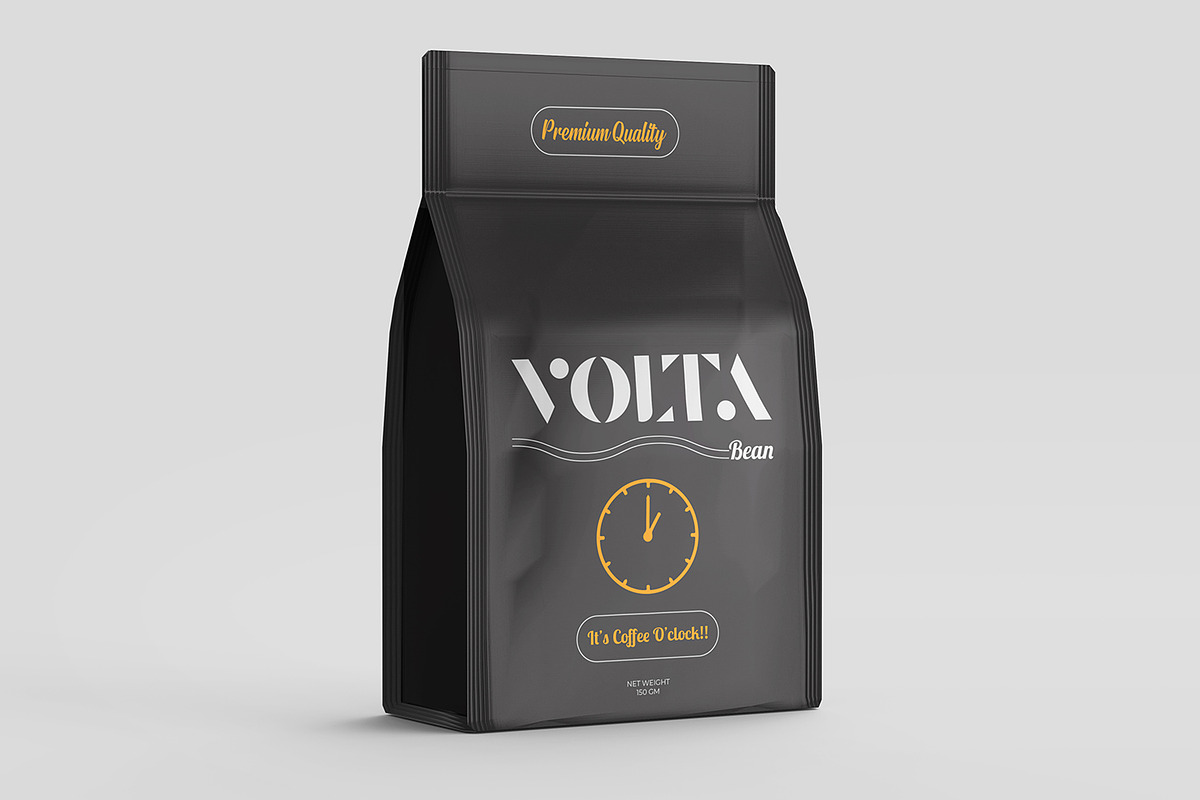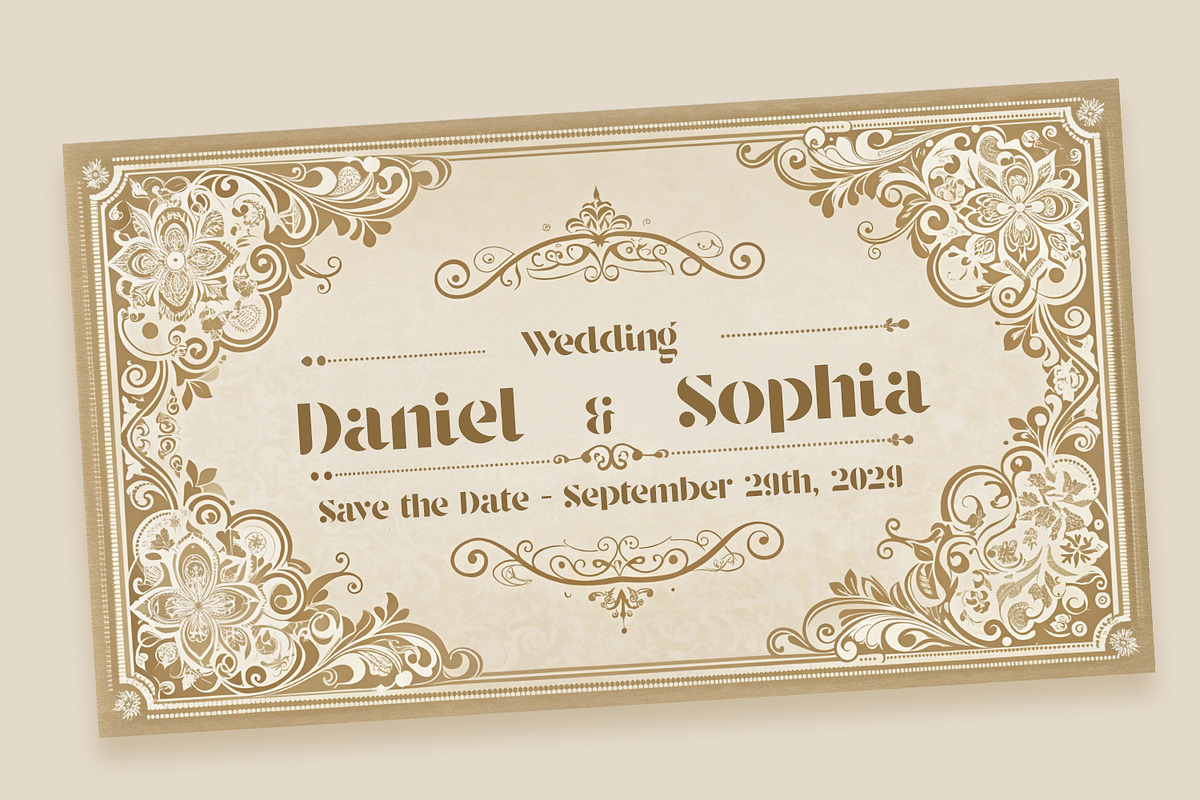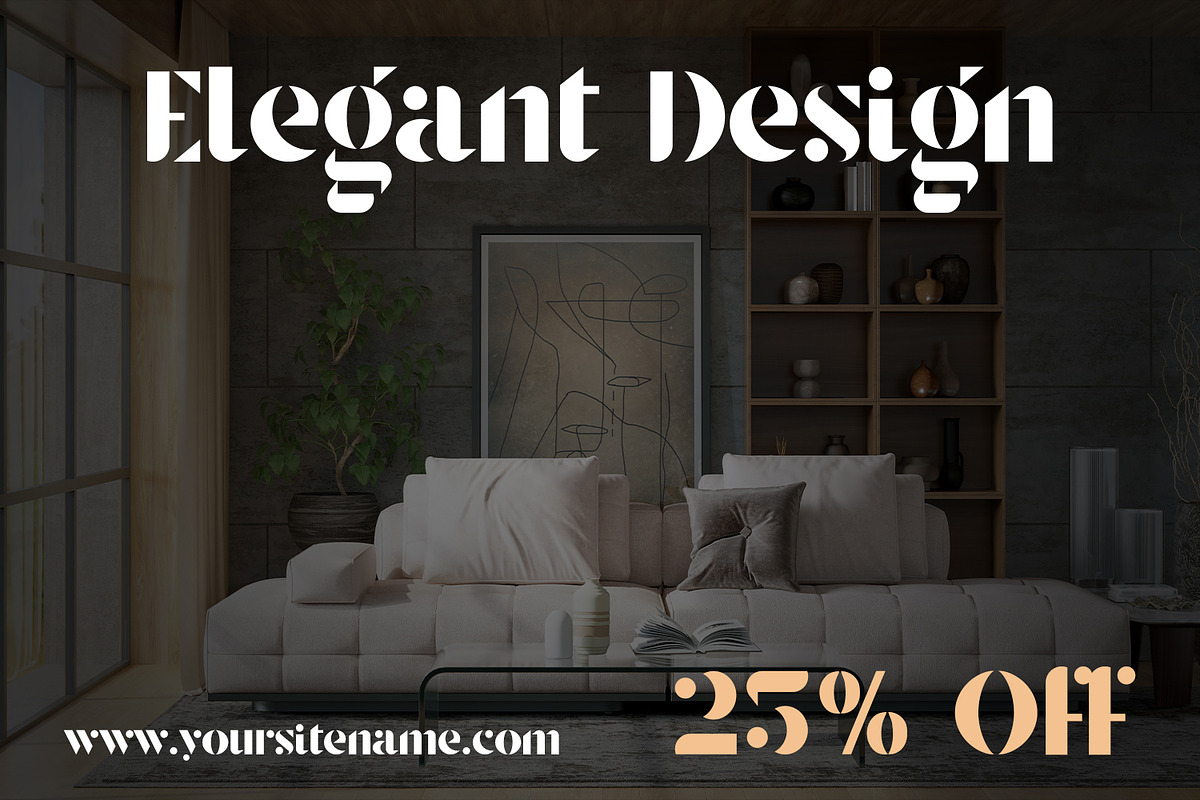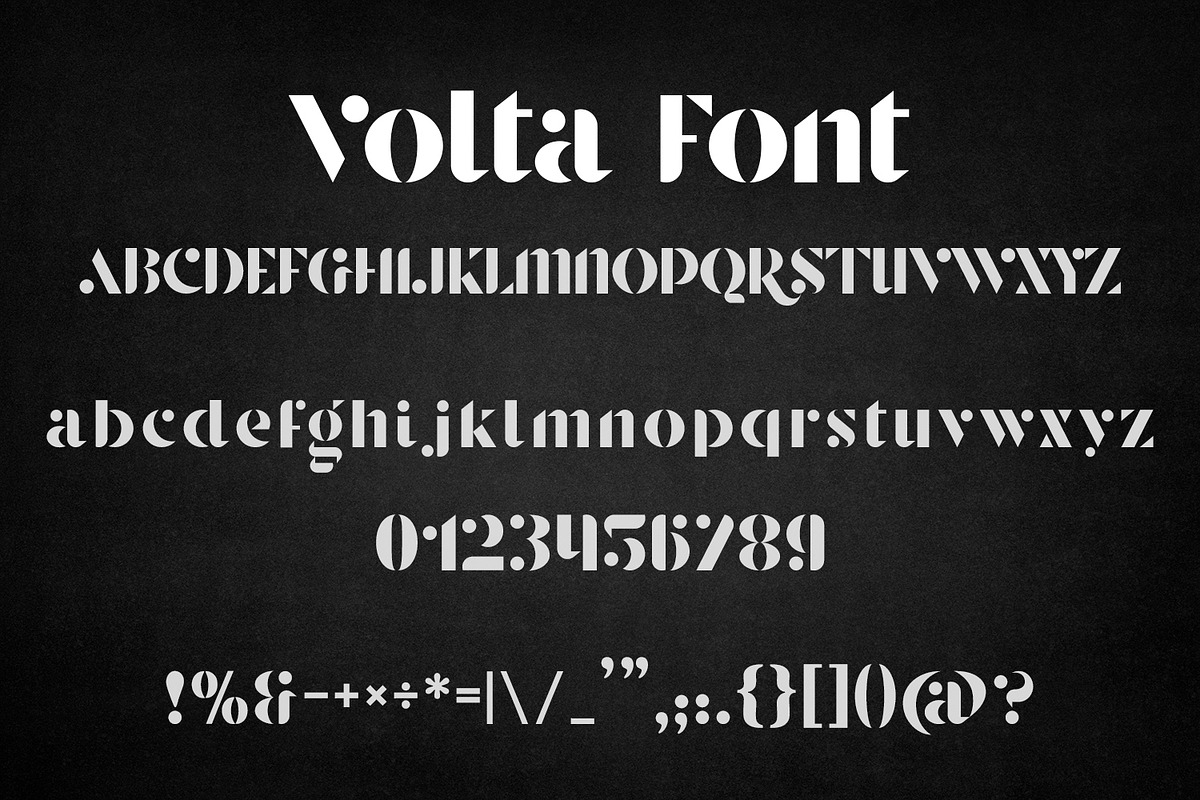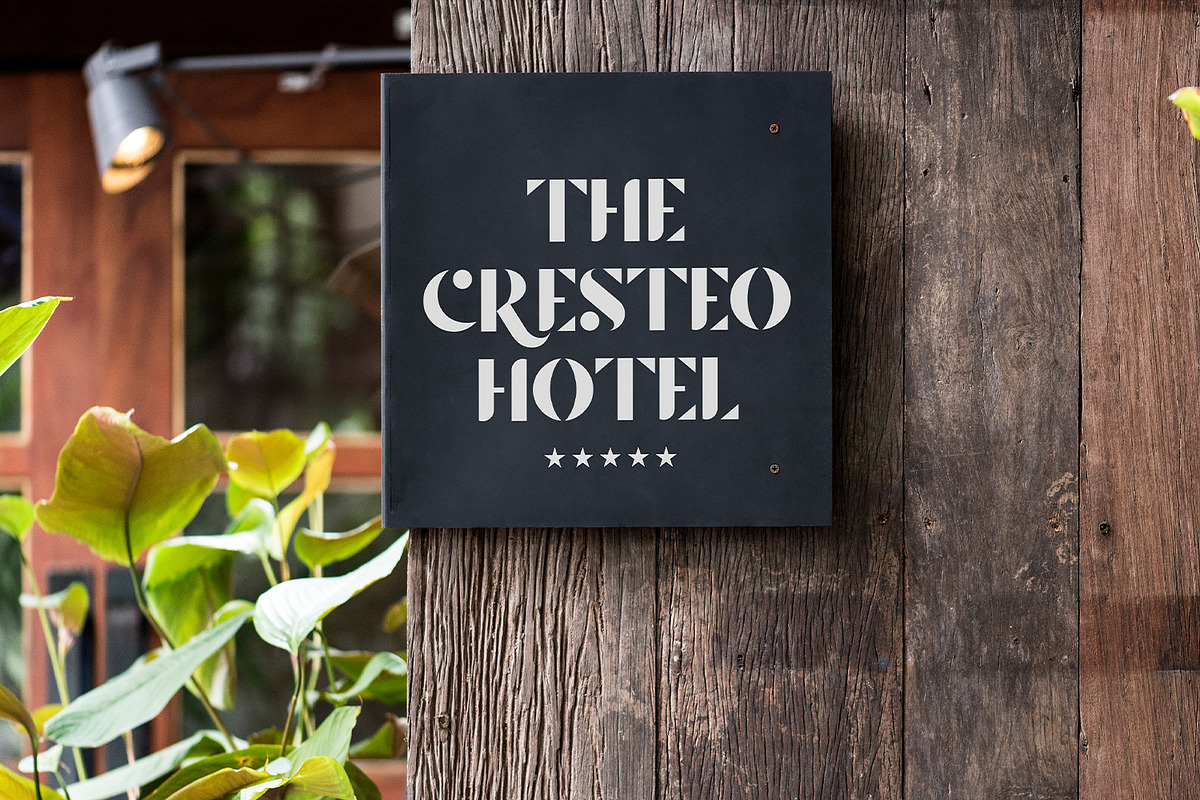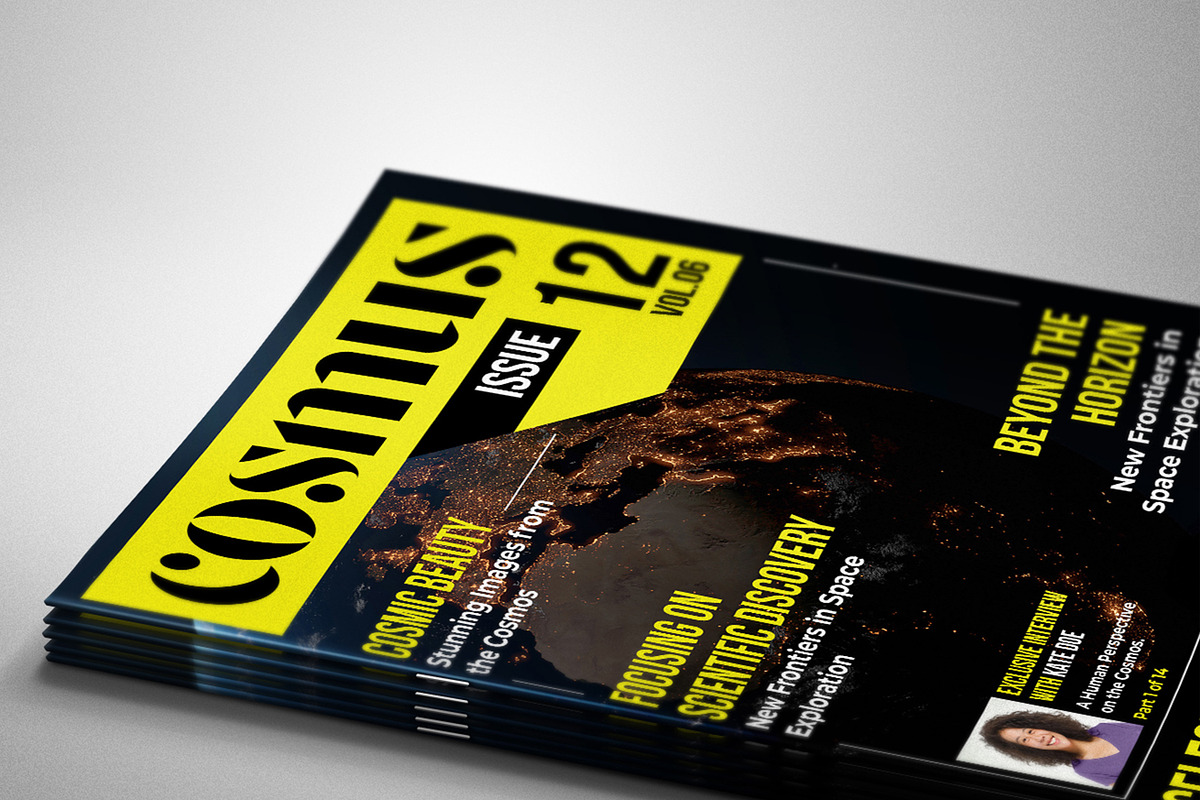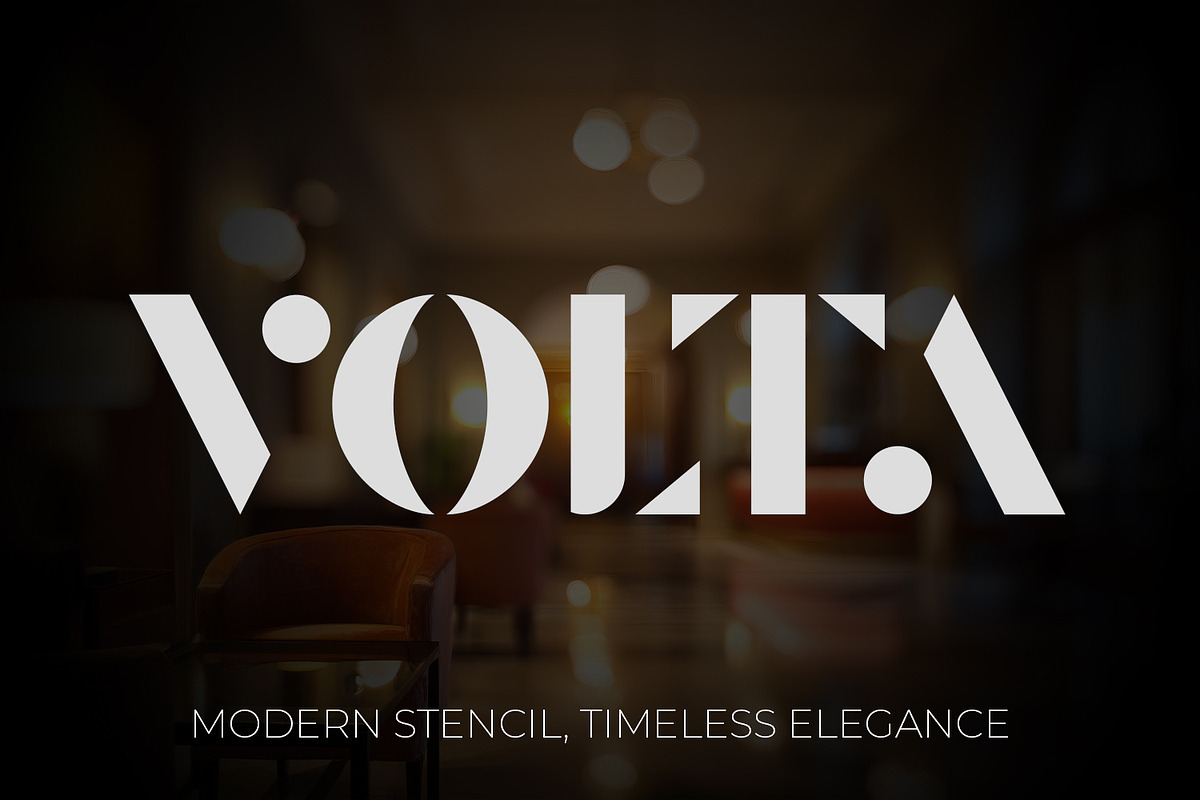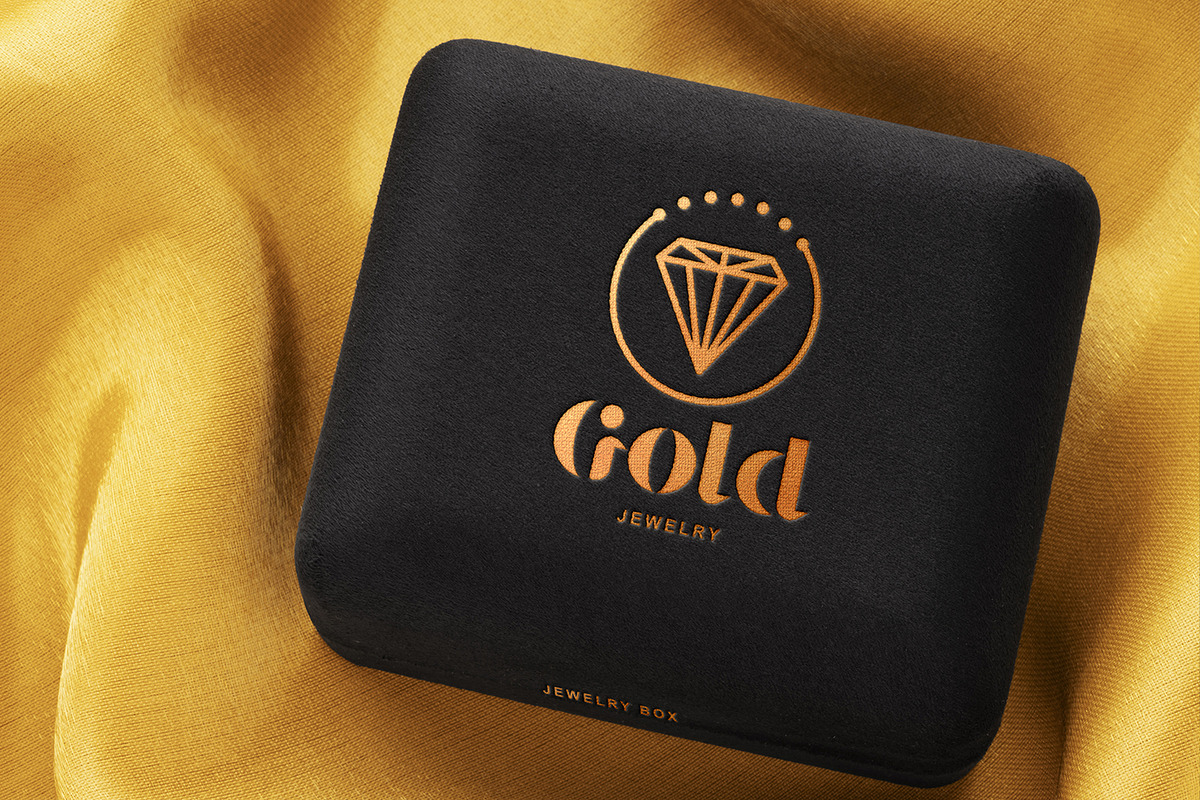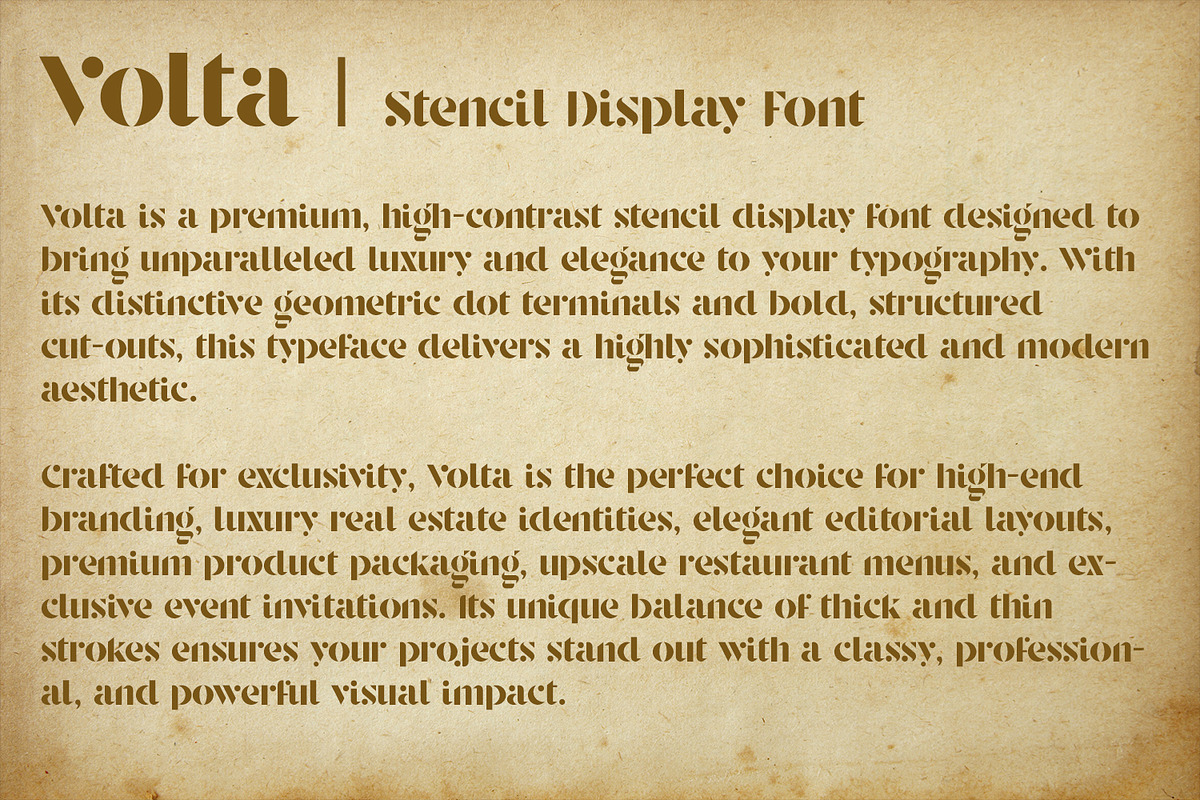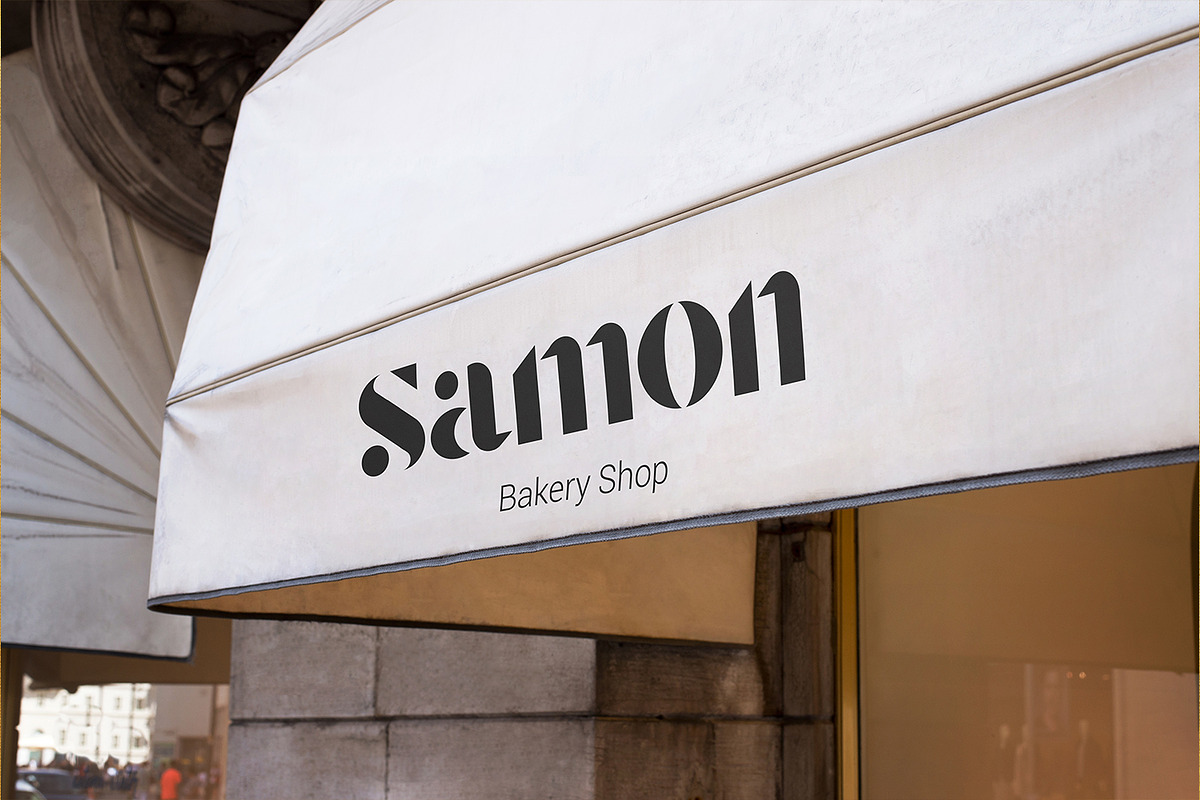
Volta - Luxury Elegant Stencil Font
Introducing Volta, a highly sophisticated and premium stencil display font designed to elevate your creative projects with unparalleled luxury and modern elegance. Featuring distinctive geometric dot terminals and bold, high-contrast cut-outs, Volta strikes the perfect balance between classic refinement and contemporary style.
Whether you are designing high-end brand identities, glamorous fashion editorials, luxury real estate logos, premium product packaging, or exclusive wedding invitations, Volta delivers a powerful and classy visual impact. Its unique aesthetic makes it incredibly versatile for upscale restaurants, jewelry brands, chic apparel labels, and elegant interior design layouts.